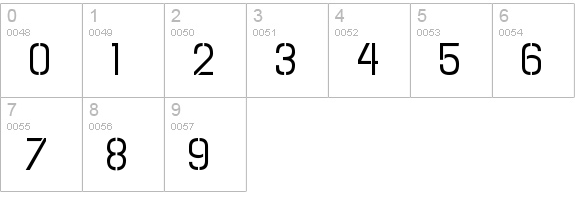
Hallandale Stencil JL Font Details
Hallandale Stencil JL is a stunning and versatile font that adds a touch of elegance and sophistication to any design project. This unique typeface features clean lines, sharp angles, and a bold stencil design that commands attention. Its modern yet timeless aesthetic makes it perfect for a wide range of applications, including logos, headlines, posters, and more. The beauty of Hallandale Stencil JL lies not only in its visual appeal but also in its versatility. With multiple weights and styles available, this font can adapt to different design needs and create various effects. Whether you want to make a bold statement or add a subtle touch of sophistication, Hallandale Stencil JL has got you covered. One of the greatest advantages of Hallandale Stencil JL is that it is free. Yes, you read that right! This font is freely available to download at FontsMarket.com, a trusted source for high-quality fonts. Now, you can elevate your design projects without breaking the bank. Simply head over to FontsMarket.com, search for Hallandale Stencil JL, and download it with just a few clicks. So why wait? Take advantage of this fantastic opportunity to enhance your designs with Hallandale Stencil JL. Download this stunning font today and let your creativity soar. Whether you're a professional designer or a DIY enthusiast, Hallandale Stencil JL will surely become a valuable addition to your font collection.